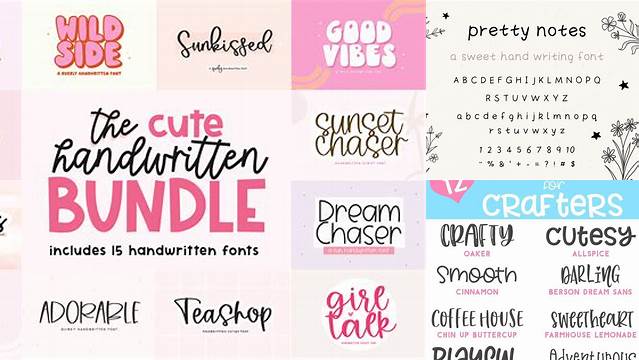
Cute Handwriting Fonts For Word: Free Download
Hey guys! Ever wanted to give your Word documents a personal, handwritten touch? Using cute handwriting fonts can totally transform your work, making everything from invitations to school projects look extra special. In this article, we’re diving into the world of adorable handwriting fonts that you can easily use in Microsoft Word. We'll cover where to find them, how to install them, and even give you some awesome ideas on how to use them. Get ready to unleash your creativity!
1. What Makes a Handwriting Font "Cute?"
When we talk about cute handwriting fonts, what exactly do we mean? It's more than just looking like someone scribbled it! A cute handwriting font often has a playful, whimsical feel. Think rounded edges, bouncy baselines, and maybe even a few little decorative flourishes. These fonts tend to evoke feelings of warmth, friendliness, and approachability, making them perfect for projects where you want to connect with your audience on a personal level. Whether it's for a birthday card, a classroom worksheet, or a creative blog post, the right cute handwriting font can add that extra touch of charm and personality that makes your work stand out. The key is to find a font that balances legibility with character, so it's both easy to read and visually appealing. So dive in and explore the many options to find the perfect fit for your project!
6. Font Pairing: Combining Handwriting with Other Fonts
To really make your documents pop, try pairing your cute handwriting font with another font. The trick is to find a font that complements the handwriting style without overpowering it. For example, pair a whimsical handwriting font with a clean, simple sans-serif font like Arial or Helvetica for the body text. This creates a nice contrast and ensures readability. Alternatively, you can use a more traditional serif font like Times New Roman or Garamond for a classic, elegant look. When choosing fonts, consider the overall tone and purpose of your document. A playful handwriting font might pair well with a modern sans-serif for a fun, casual vibe, while a more refined handwriting font might look great with a traditional serif for a sophisticated feel. Experiment with different combinations until you find a pairing that works for you. Font pairing can elevate your design and make your cute handwriting font truly shine.
7. Best Cute Handwriting Fonts for Invitations
Planning a party or special event? Cute handwriting fonts are perfect for creating eye-catching invitations. For a birthday party, try a playful, bouncy font like Amatic SC or Permanent Marker. These fonts have a fun, informal feel that's perfect for kids' parties. For a wedding or more formal event, consider a more elegant script font like Scriptina or Great Vibes. These fonts have a classic, sophisticated look that's perfect for conveying a sense of romance and celebration. When designing your invitations, use the handwriting font for the names, dates, and other important details. Pair it with a simple, easy-to-read font for the body text. Don't forget to choose colors and graphics that complement the font and overall theme of your event. With the right cute handwriting font, your invitations will be sure to impress your guests.
8. Using Handwriting Fonts in School Projects
Spice up your school projects with cute handwriting fonts! Whether you're creating a presentation, writing a report, or designing a poster, a handwriting font can add a personal touch and make your work stand out. For younger students, a playful font like * школьные письма* or маркеры can make learning fun and engaging. For older students, a more sophisticated font like Coming Soon or Patrick Hand can add a touch of style without sacrificing readability. When using handwriting fonts in school projects, be mindful of your audience and the overall tone of your work. Choose a font that's appropriate for the subject matter and your teacher's expectations. Use the font sparingly, and always pair it with a clear, easy-to-read font for the body text. With a little creativity, you can use cute handwriting fonts to make your school projects shine.
9. Creating a Logo with a Handwriting Font
Thinking about branding? A cute handwriting font can be a great choice for creating a unique and memorable logo. Handwriting fonts convey a sense of authenticity, personality, and approachability, which can be especially effective for businesses that want to connect with their customers on a personal level. When choosing a handwriting font for your logo, consider your brand's identity and target audience. A playful, whimsical font might be perfect for a children's boutique or a creative agency, while a more elegant script font might be better suited for a beauty salon or a wedding planner. Keep in mind that your logo should be easily recognizable and legible, even at small sizes. Avoid using overly ornate or complicated fonts that might be difficult to read. Pair your handwriting font with a simple graphic or icon to create a cohesive and professional logo that represents your brand.
30. Bookmarks with Cute Handwriting Fonts
Enhance the reading experience with bookmarks featuring cute handwriting fonts. A handwritten-style font can add a personal and artistic touch to your bookmarks, making them a delightful addition to your reading routine. When designing your bookmarks, select fonts that are clear, legible, and visually appealing. Use different cute handwriting fonts to personalize your bookmarks with quotes, names, or favorite characters. Consider adding illustrations, tassels, or laminated finishes to enhance the overall look. Well-designed bookmarks can make reading more enjoyable and serve as a reminder of your favorite stories.